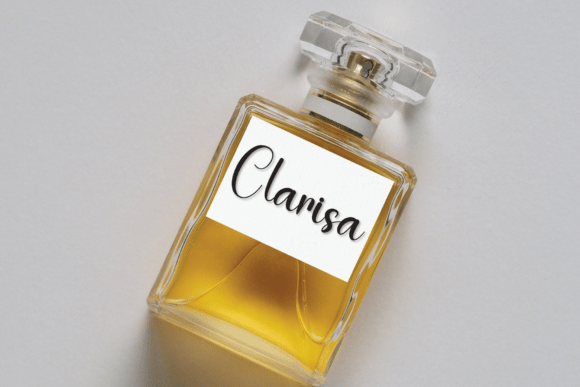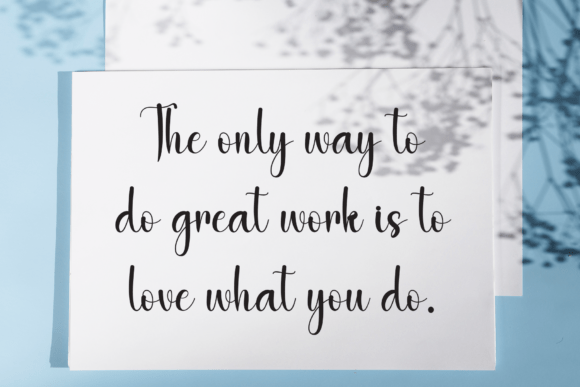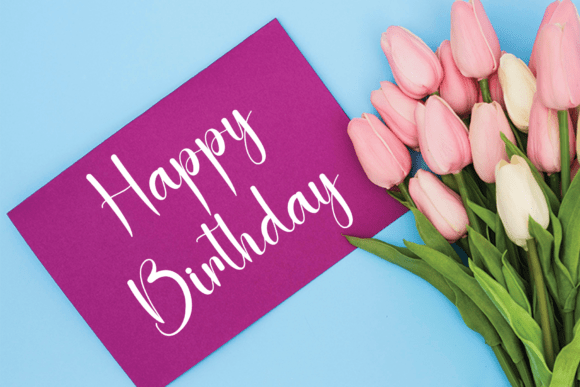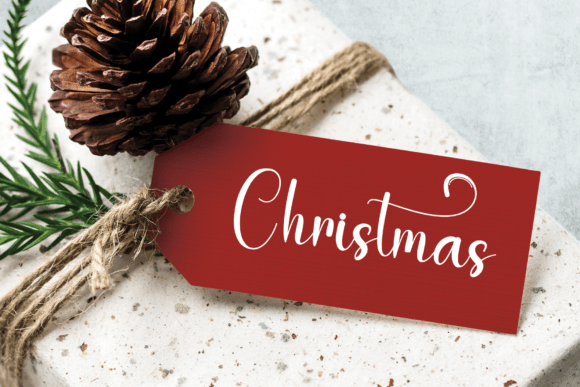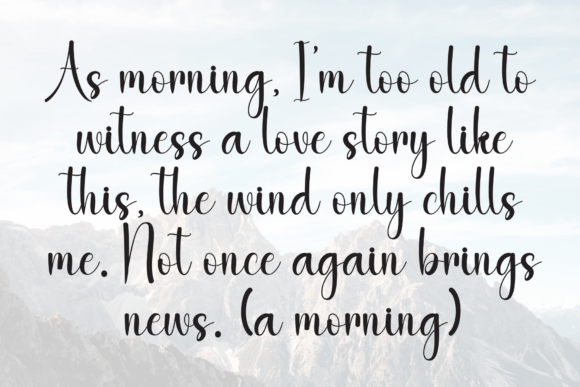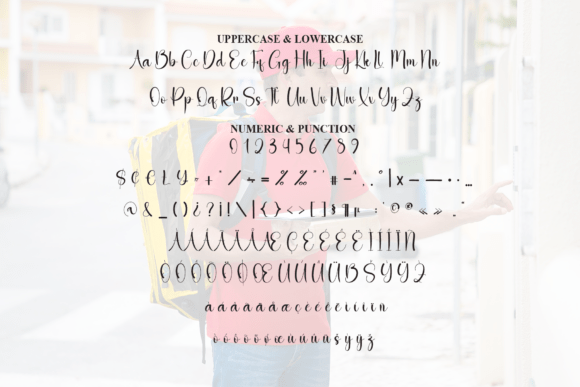
Introduction to Postman Font
Have you ever been working on a creative project, pouring your heart and soul into every detail, only to feel like something’s missing? The perfect font can make all the difference. For me, that font was the Postman Font, a beautifully hand-illustrated display font that captured my imagination and set my project ablaze with creativity.
With its warm and inviting nature, the Postman Font is a design resource that’s hard to resist. Whether you’re crafting sophisticated wedding invitations, charismatic greeting cards, or simply adding a touch of magic to your graphic design journey, this font is sure to captivate your audience with its high-quality charm. The best part? It’s available for free download, making it a valuable addition to any designer’s toolkit.
Key Features of Postman Font
- High-quality design resource ideal for creative projects, offering a unique and modern look.
- Transparent background, making it easy to use in various design scenarios and backgrounds.
- Includes multiple font weights, ranging from light to bold, allowing for flexibility in design applications.
- Designed with a clean and minimalist aesthetic, making it perfect for use in digital and print projects.
Honest Review: Postman Font
As a designer, I’ve had the pleasure of working with a variety of fonts for my creative projects. Recently, I had the opportunity to try out the Postman Font, and I must say, it’s been a game-changer.
- High quality: The Postman Font is crisp, clear, and well-designed, making it perfect for use in logos, headings, and other text-based elements.
- Transparent background: The font’s transparent background allows for seamless integration with other design elements, making it a great choice for creative projects.
What could be improved:
- ⚠️ Limited character set: While the font is available in several weights and styles, the character set is somewhat limited, which may not be ideal for designers working on complex projects.
- ⚠️ Not suitable for small text: The font’s size and style make it difficult to read in small text sizes, which may limit its use in certain applications.
Overall impression:
The Postman Font is a solid addition to any designer’s toolkit. Its high quality, free availability, and transparent background make it an excellent choice for creative projects. While it may have some limitations, it’s definitely worth considering for your next design project.
Introduction to Postman Font
The Postman Font is a high-quality, free design resource ideal for creative projects that require a unique and modern touch. With a transparent background, this font is perfect for designers who want to add a touch of elegance to their work.
Tips for Getting the Most Out of Postman Font
Use the Postman Font to add a touch of modernity to your designs, and experiment with different font sizes and styles to create a unique look.
Common Use Cases for Postman Font
The Postman Font is ideal for use in branding materials, social media graphics, and advertising campaigns. Its modern and elegant design makes it perfect for creating a professional and stylish look.